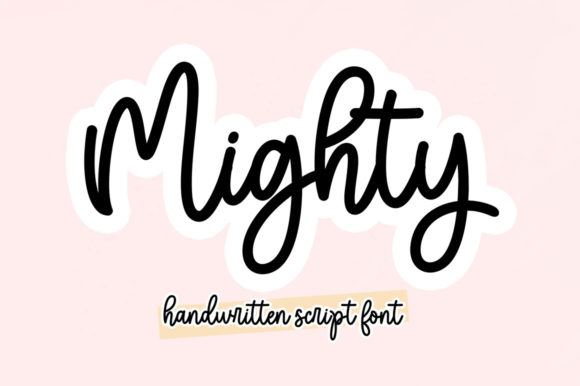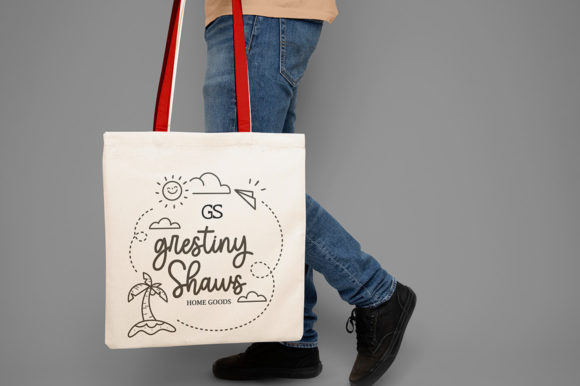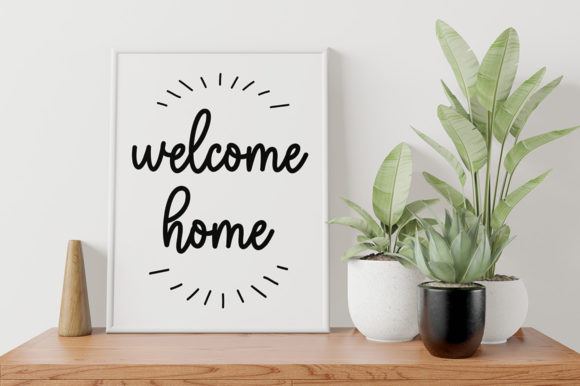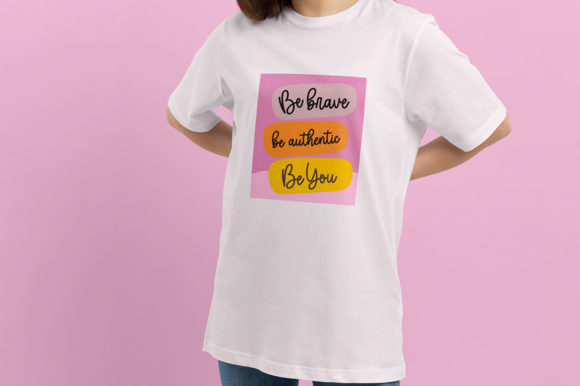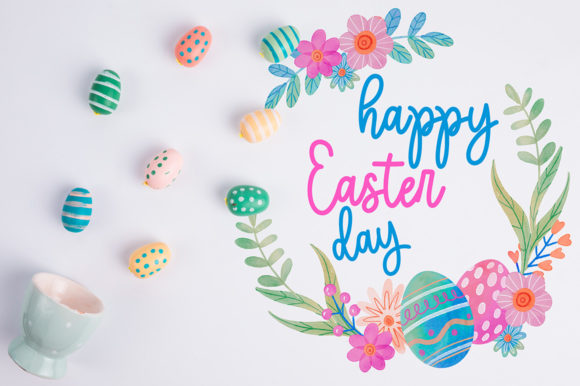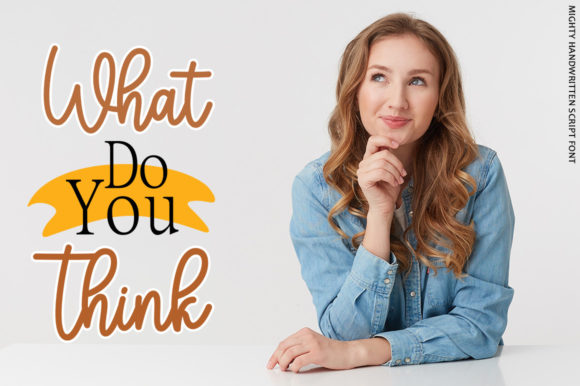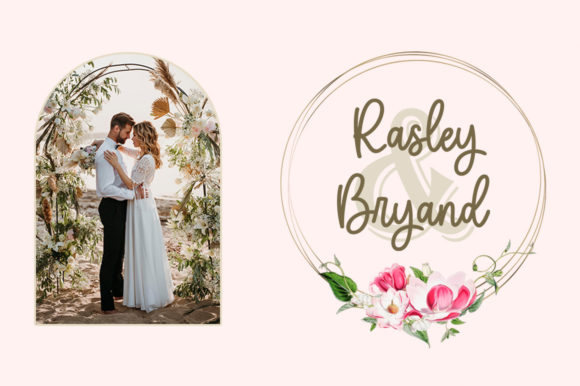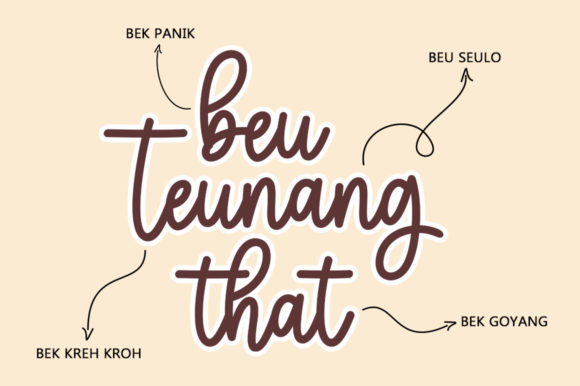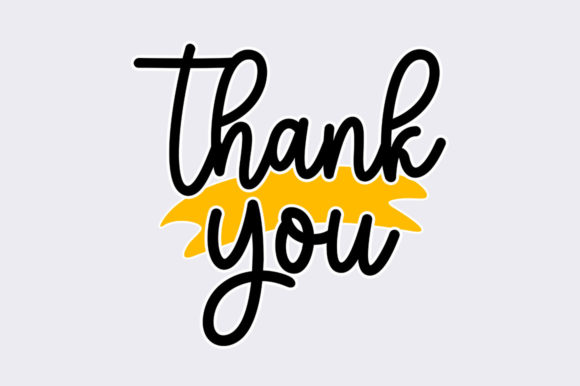
Mighty Font
About Mighty Font
Mighty stands out as a delicate and stylish script font, bringing an air of sophistication to a diverse range of design applications. Its versatility makes it a favorite choice for various creative endeavors, from crafts and digital design to presentations and greeting cards. No matter the occasion, Mighty has the potential to become your go-to font, adding a touch of elegance to your projects.
Craft projects benefit from Mighty’s delicate and stylish script. Whether you’re creating handmade cards, DIY decorations, or other crafts, the font’s graceful strokes elevate the visual appeal, turning ordinary projects into works of art. Its versatility allows it to adapt seamlessly to different crafting styles and materials.
In the realm of digital design, Mighty proves to be a valuable asset. Its stylish script adds a level of sophistication to digital graphics, social media posts, and web designs. The font’s delicate nature enhances the overall aesthetics, making it suitable for a wide range of digital applications, from website headers to promotional materials.
Presentations take on a polished and professional look with the inclusion of Mighty. The font’s stylish script adds a touch of elegance to slide decks, making information more visually engaging and memorable. Whether used for business presentations or educational purposes, Mighty contributes to a visually cohesive and refined presentation style.
Greeting cards become truly special with the addition of Mighty. The delicate and stylish script imparts a sense of charm and thoughtfulness to the messages, turning simple cards into heartfelt expressions. Whether used for birthdays, holidays, or special occasions, Mighty enhances the emotional impact of your greetings.
The versatility of Mighty extends beyond these examples, making it a reliable choice for various design scenarios. Its delicate and stylish script ensures that it remains a favorite font, no matter the occasion. From branding to invitations, the font effortlessly adds a level of sophistication that elevates the overall aesthetic of your designs.
In conclusion, Mighty is more than just a font; it’s a design companion that brings delicacy and style to your creative projects. Whether you’re engaged in crafts, digital design, presentations, or greeting card creation, Mighty stands as a versatile and elegant choice, ready to enhance the visual appeal of your work on any occasion.